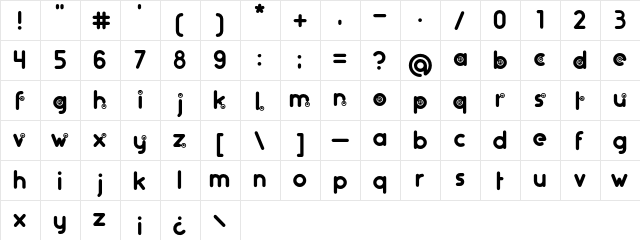
artifice.rs Regular
| Designer | Robert A. Paauwe & Wang Long Li |
Design Context for artifice.rs Typeface
artifice.rs offers clean, dependable letterforms without strong stylistic allegiance, making it a practical choice for designers who need flexibility.